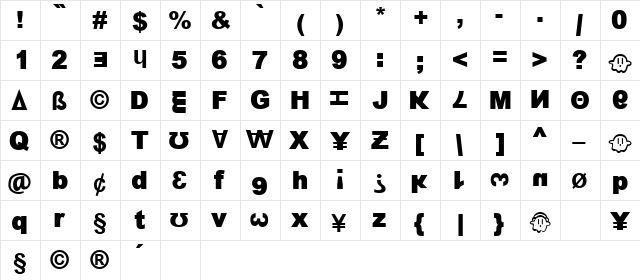
13_Fletcher Regular
Foundry: 13th Degree
Designer: Zane Townsend
Design Context for 13_Fletcher
13_Fletcher is a composed and adaptable typeface that performs quietly and consistently across a wide range of design contexts.
Pro Tip: Use 13_Fletcher in both headline and body roles to test its range before committing to a single application.